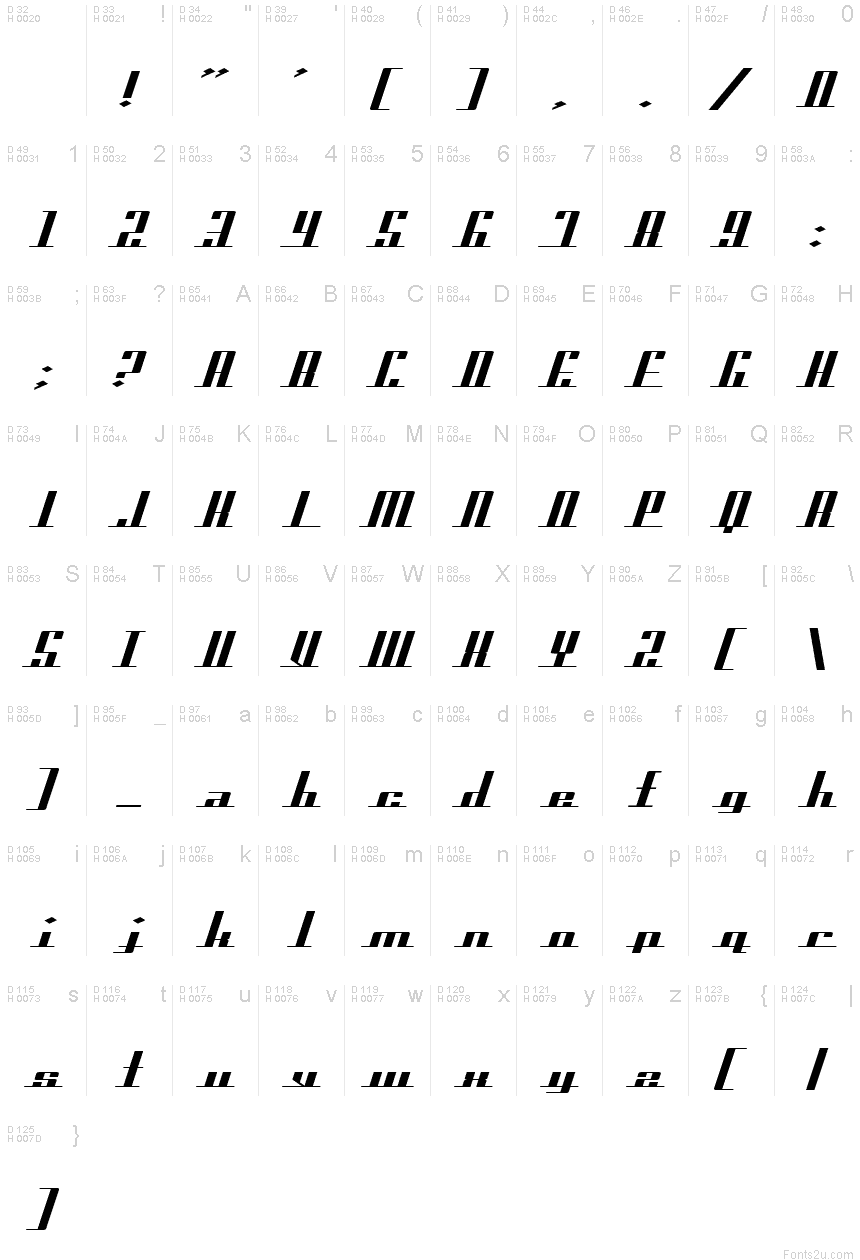
Americana Dreams Expanded
Americana Dreams Expanded font by ShyWedge is a free retro display typeface that turns every word into a streak of motion. Its sharply slanted letters and blocky, pixel-edged curves feel like neon script glimpsed through an old arcade screen—fast, flashy, and just a little gritty. The wider spacing in this Americana Dreams family style lets each character breathe, so even the wildest titles stay readable while still buzzing with energy.
Using Americana Dreams Expanded, headlines snap to attention on posters, arcade-inspired logos, synthwave album covers, Twitch overlays, event flyers, and retro gaming UIs. This free font shines when set large and bold, with short phrases that punch off the page. Pair it with a clean geometric sans in smaller text to anchor the design and let those jagged, racing letterforms steal the spotlight.